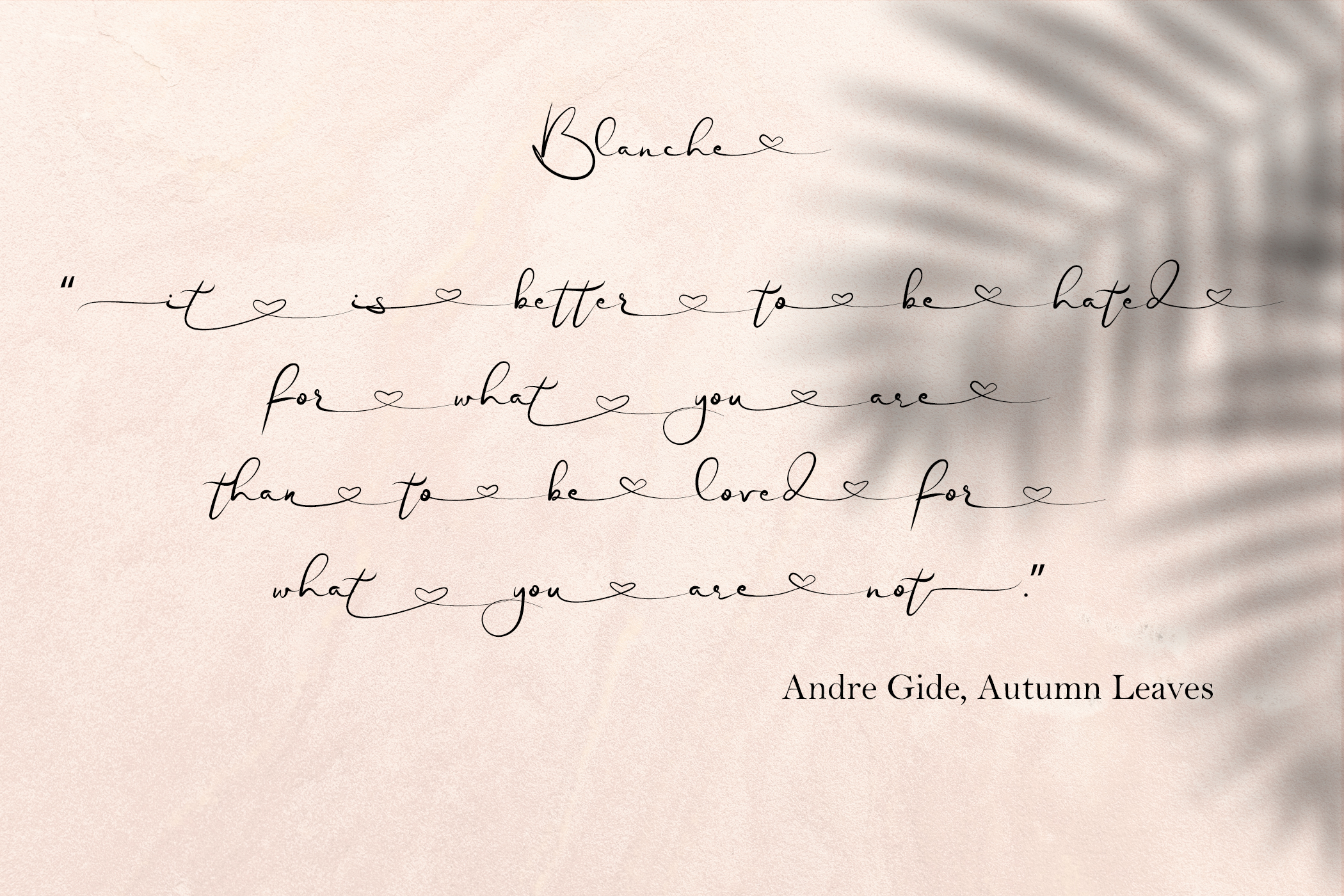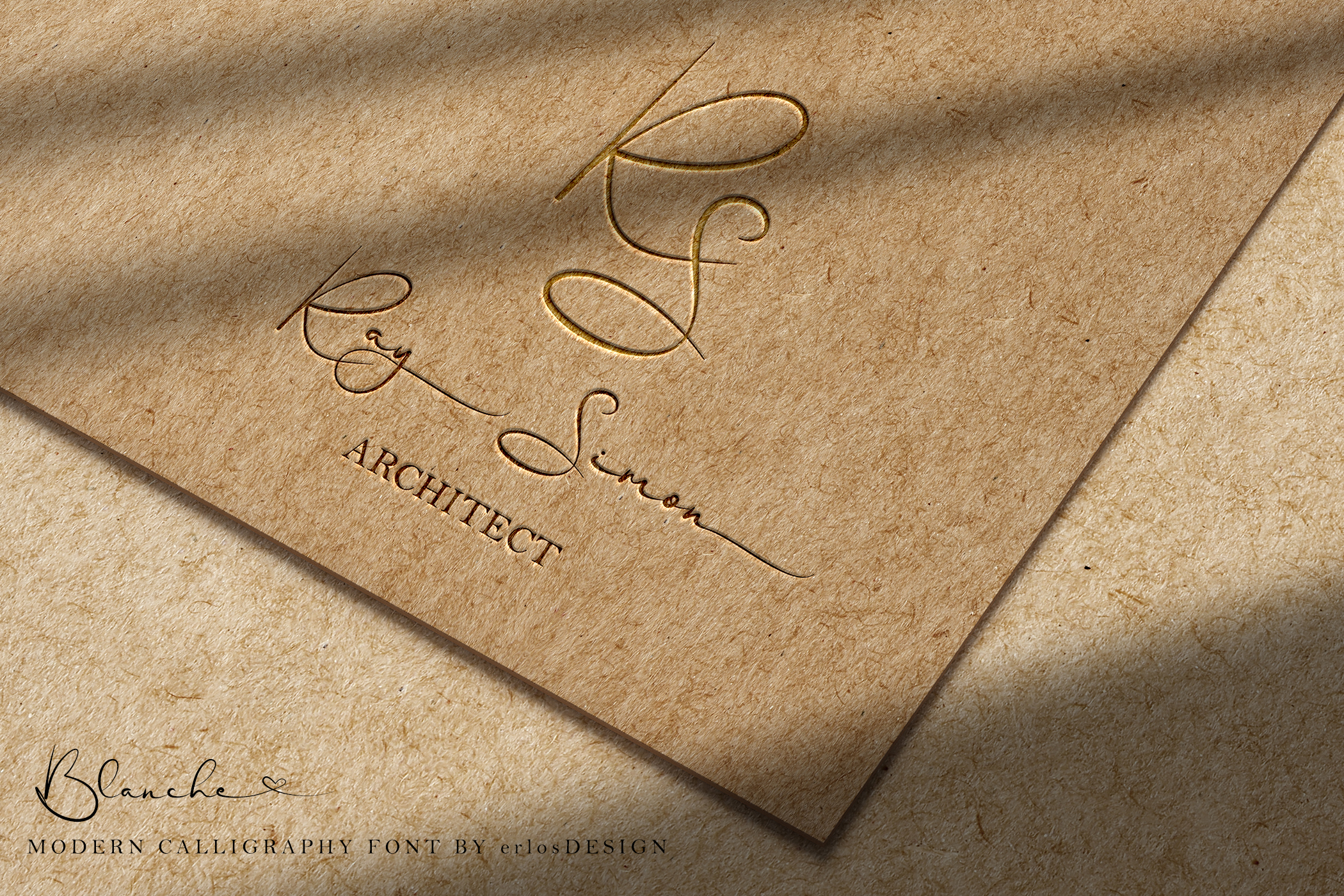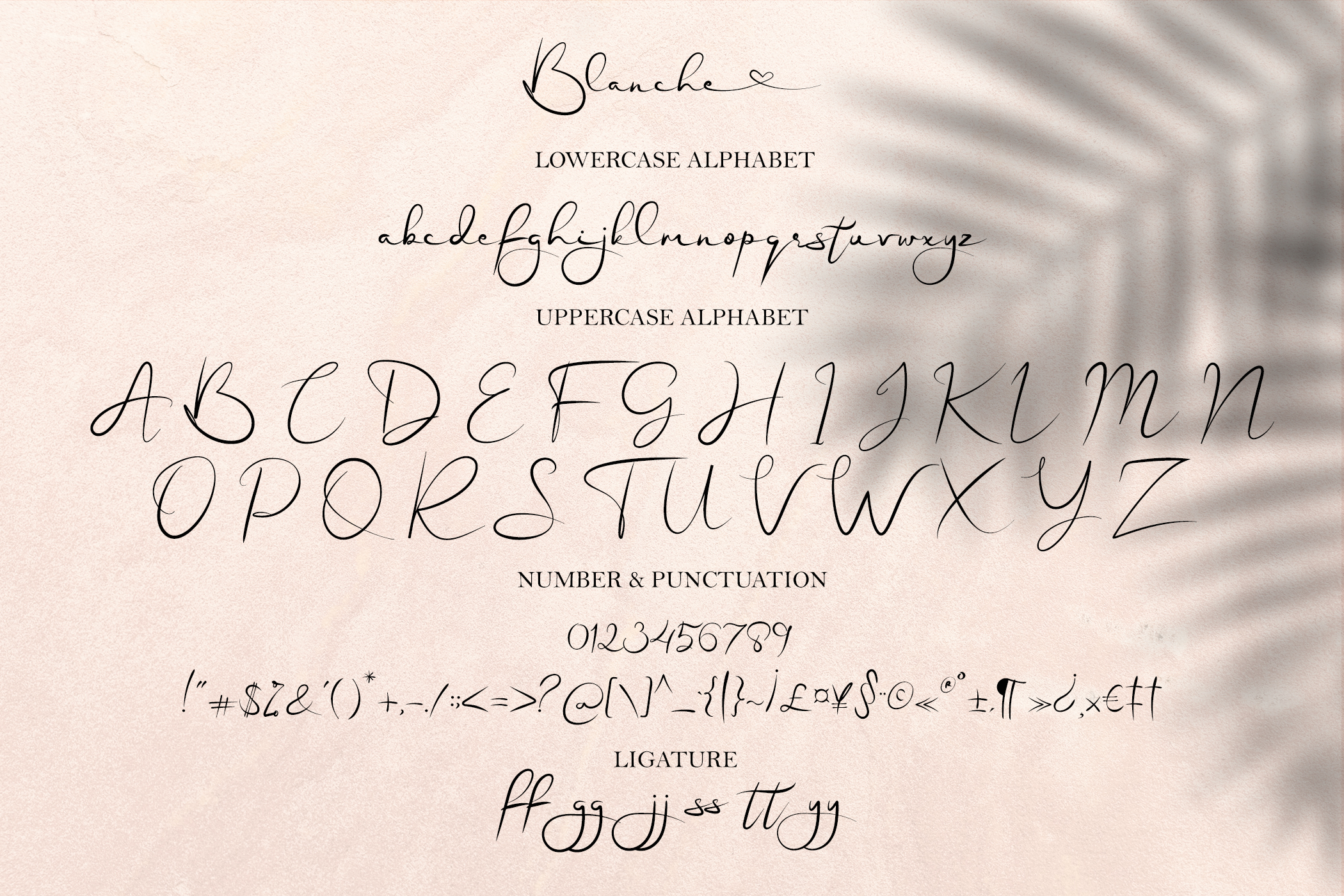
Blanche Font is a modern calligraphy font with handwritten, sophisticated flows. It is full of hearts and glyphs:). It is perfect for branding, wedding invites, and cards. Blanche Font includes a full set of lovely uppercase and lowercase letters, multilingual symbols, numerals, punctuation and ligatures. Also it includes: -long lowercase beginning and ending swashes -lowercase ending heart swashes, which serve to connect two words or letters (This is so perfect for invitations, monograms) -short lowercase ending heart swashes. The font has a smooth texture, so it would be perfect for your design. The file you will get is: • OTF, TTF • Works on PC & Mac • Simple installation • Can be accessed in Adobe Illustrator, Adobe Photoshop, Adobe InDesign, and even works in Microsoft Word. • Encoded PUA Character – Can be accessed completely without additional design software. Enjoy!